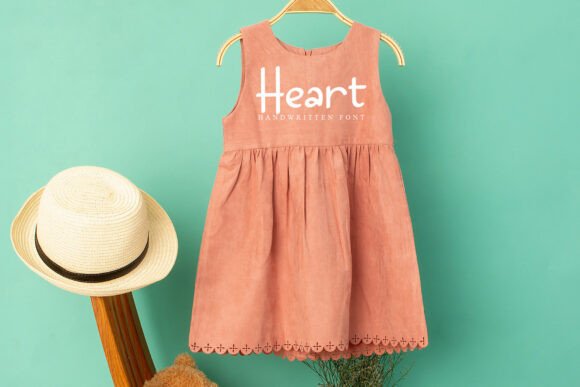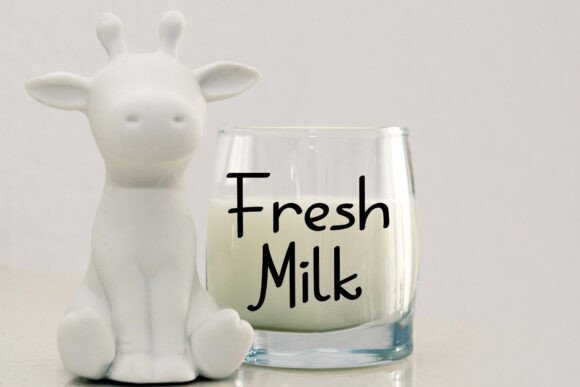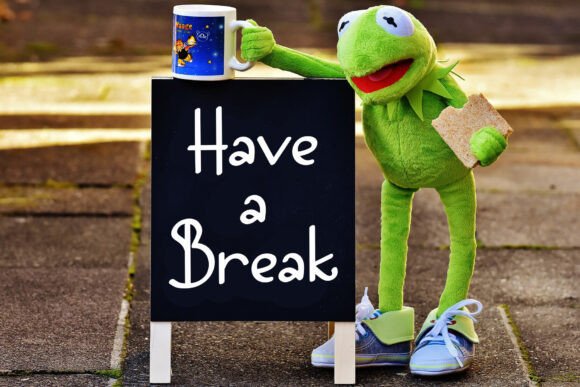
Introducing Flash Heart Font: The Ultimate Elegance for Your Designs
Are you a designer or crafter looking for a unique and elegant font to elevate your creations? Look no further than Flash Heart Font. This stunning font is perfect for adding a touch of sophistication and whimsy to your designs, making it ideal for wedding invitations, greeting cards, billboards, logos, business cards, and more.
The Unique Features of Flash Heart Font
Flash Heart Font boasts a range of features that set it apart from other fonts. One of its standout characteristics is its varied baseline, which gives it a natural, hand-made touch. This means that your designs will have a unique, organic feel that is sure to capture the attention of your audience.
Another key feature of Flash Heart Font is its PUA encoding. This means that you can access all glyphs and swashes with ease, giving you complete creative control over your designs. Whether you’re looking to add a touch of elegance or a dash of whimsy, Flash Heart Font has everything you need to bring your vision to life.
Perfect for a Range of Design Applications
Flash Heart Font is incredibly versatile, making it perfect for a wide range of design applications. Here are just a few ideas to get you started:
• Wedding Invitations: Add a touch of romance and elegance to your wedding invitations with Flash Heart Font. Its unique, hand-made feel is sure to make your invitations stand out.
• Greeting Cards: Whether you’re creating birthday cards, anniversary cards, or get-well cards, Flash Heart Font is the perfect choice. Its varied baseline and elegant feel make it ideal for any occasion.
• Billboards: Make a big impact with Flash Heart Font on your billboards. Its unique feel and elegant style are sure to grab the attention of passersby.
• Logos: Add a touch of sophistication and whimsy to your logos with Flash Heart Font. Its hand-made feel and elegant style make it perfect for businesses looking to stand out.
• Business Cards: Make a lasting impression with Flash Heart Font on your business cards. Its unique feel and elegant style are sure to make your cards stand out.
Why Choose Flash Heart Font?
So why choose Flash Heart Font for your designs? Here are just a few reasons:
• Unique and Elegant: Flash Heart Font is a truly unique and elegant font that will elevate your designs and make them stand out.
• Hand-Made Touch: Its varied baseline and hand-made feel give it a natural, organic feel that is sure to capture the attention of your audience.
• PUA Encoded: With PUA encoding, you can access all glyphs and swashes with ease, giving you complete creative control over your designs.
• Versatile: Flash Heart Font is perfect for a wide range of design applications, from wedding invitations to billboards.
Tips for Using Flash Heart Font
Here are a few tips for getting the most out of Flash Heart Font:
• Experiment with Different Sizes: Flash Heart Font looks great in a range of sizes, from small and delicate to large and bold.
• Play with Swashes: With PUA encoding, you can access a range of swashes and glyphs to add a touch of elegance and whimsy to your designs.
• Pair with Other Fonts: Flash Heart Font pairs perfectly with a range of other fonts, from bold and modern to elegant and script.
In conclusion, Flash Heart Font is a unique and elegant font that is perfect for designers and crafters looking to elevate their creations. With its varied baseline, hand-made touch, and PUA encoding, it’s ideal for a wide range of design applications, from wedding invitations to billboards. So why not give Flash Heart Font a try today and see the difference it can make in your designs?